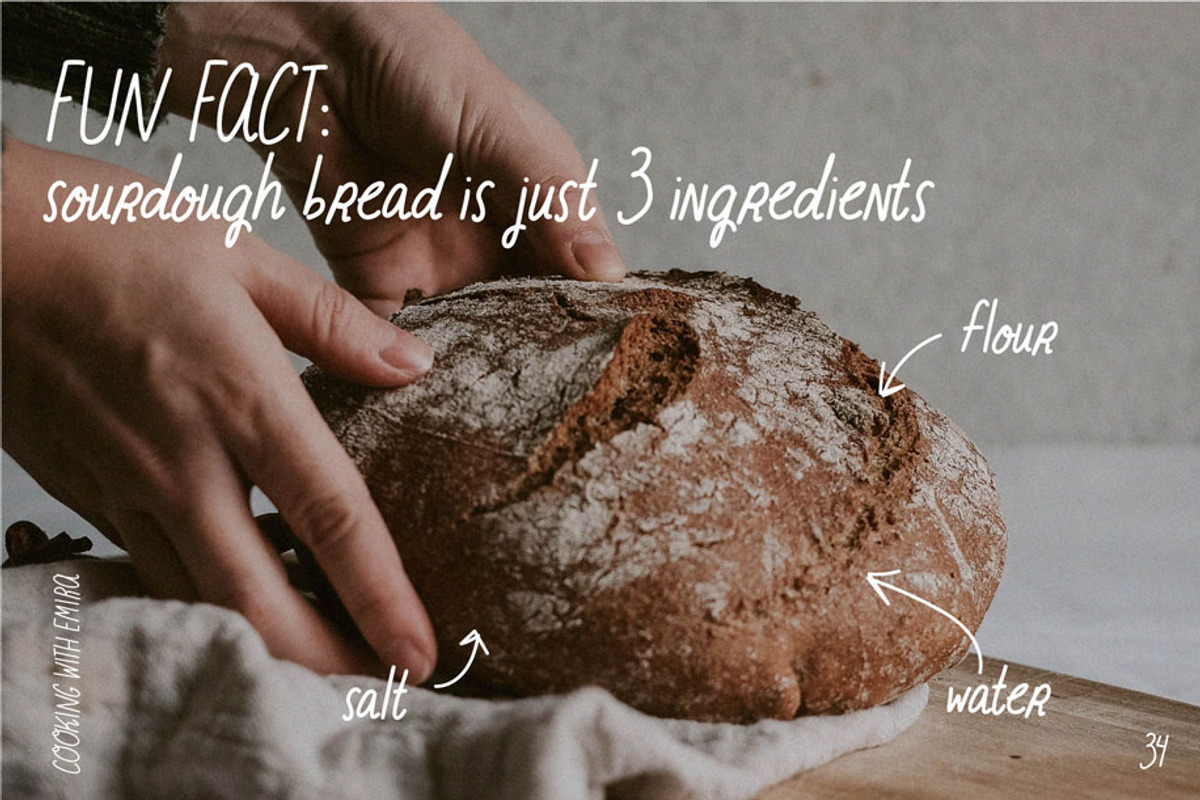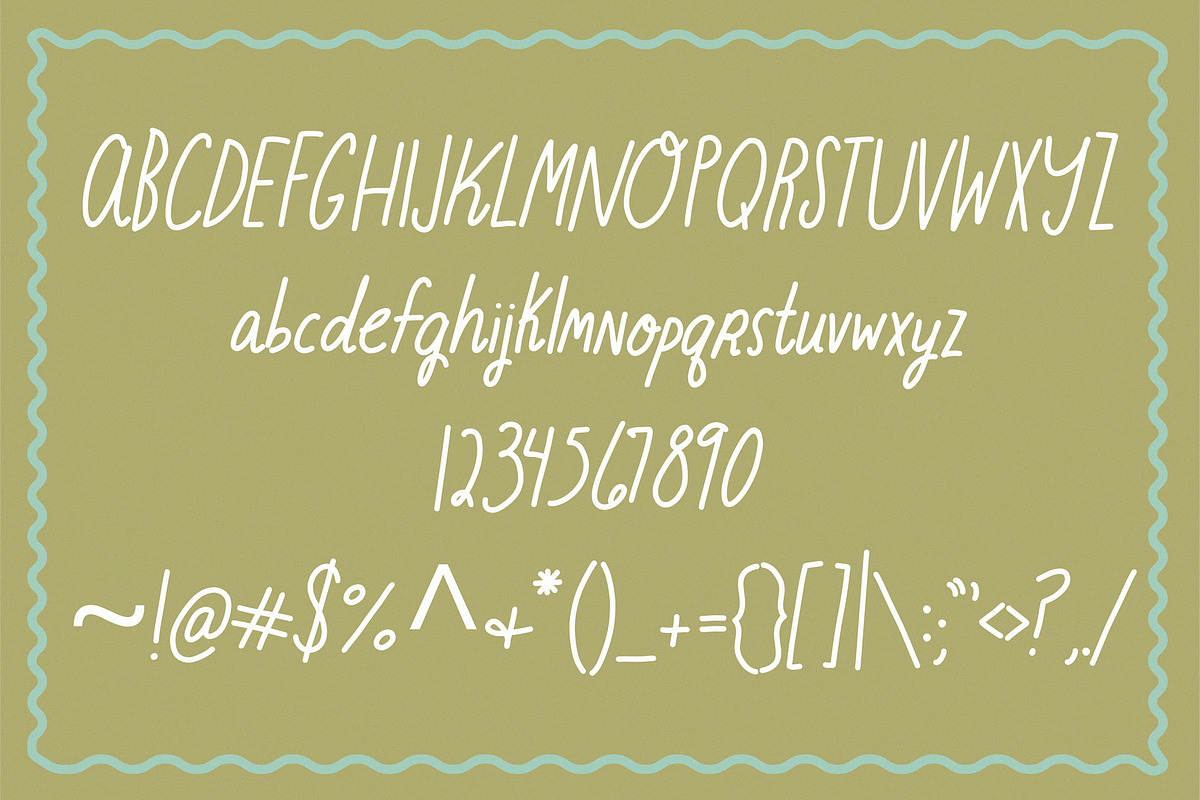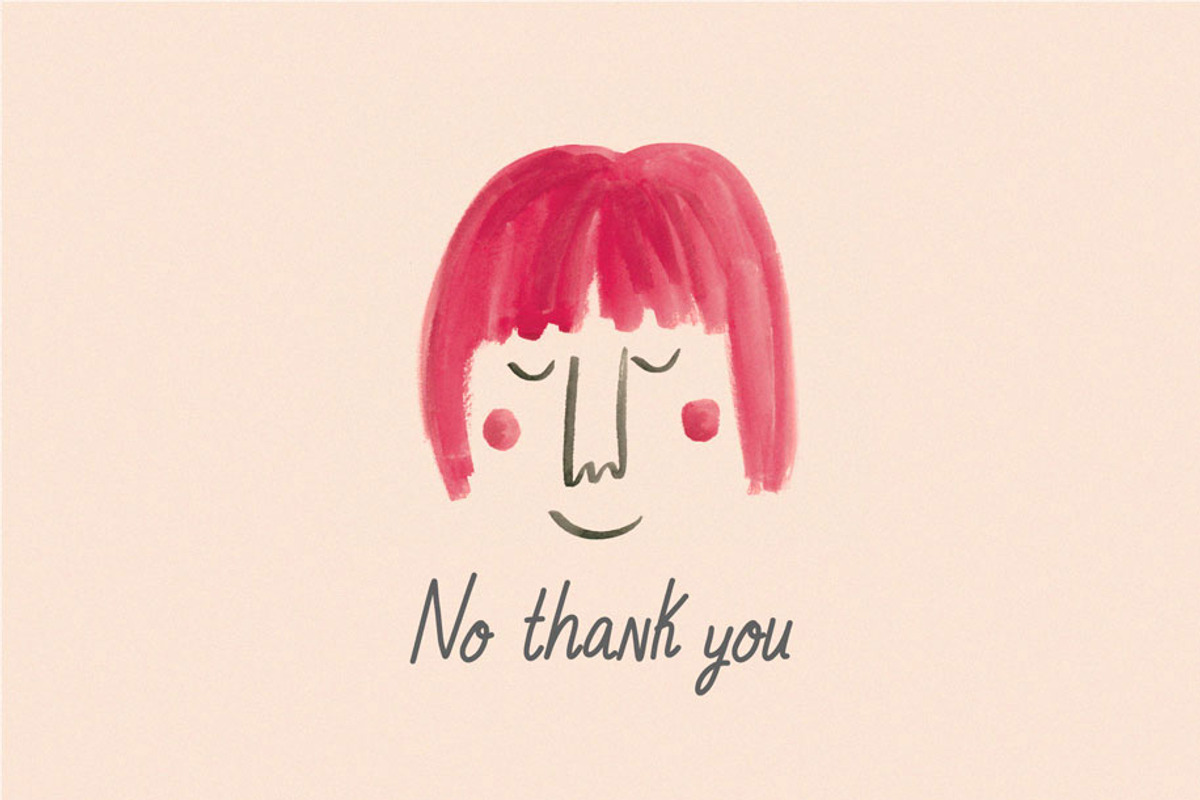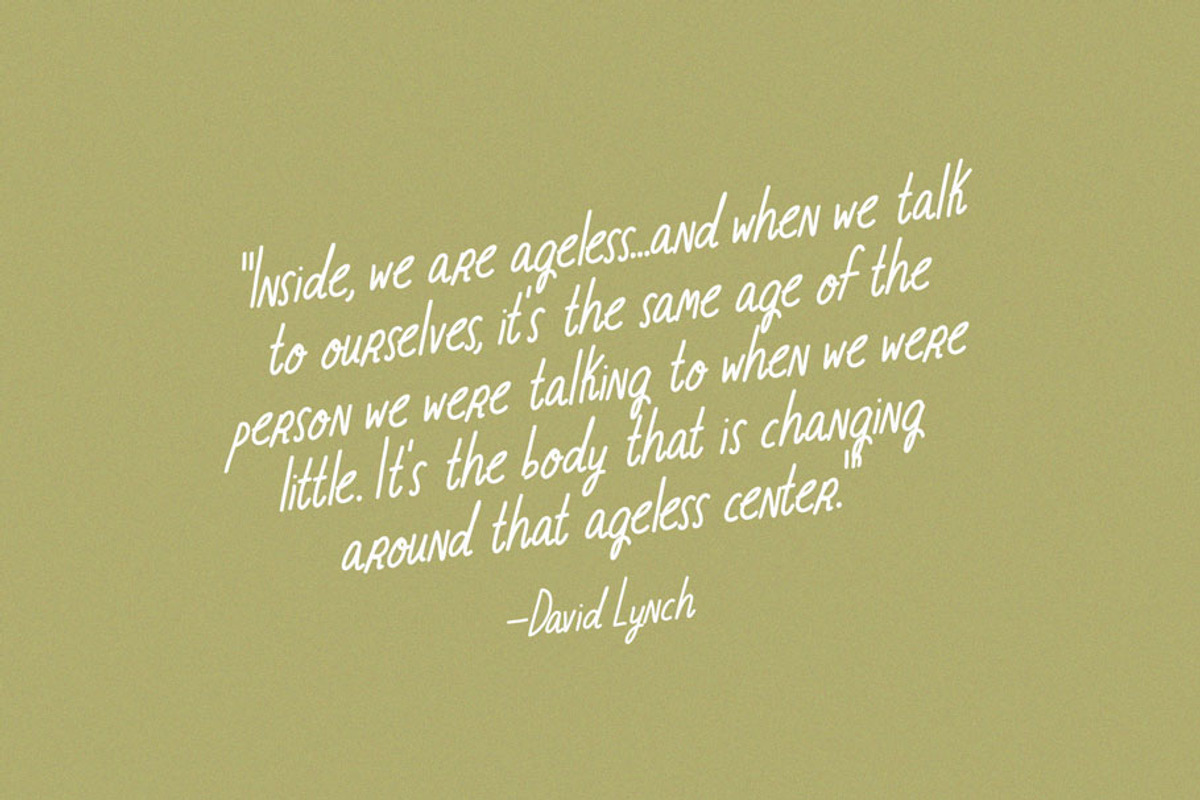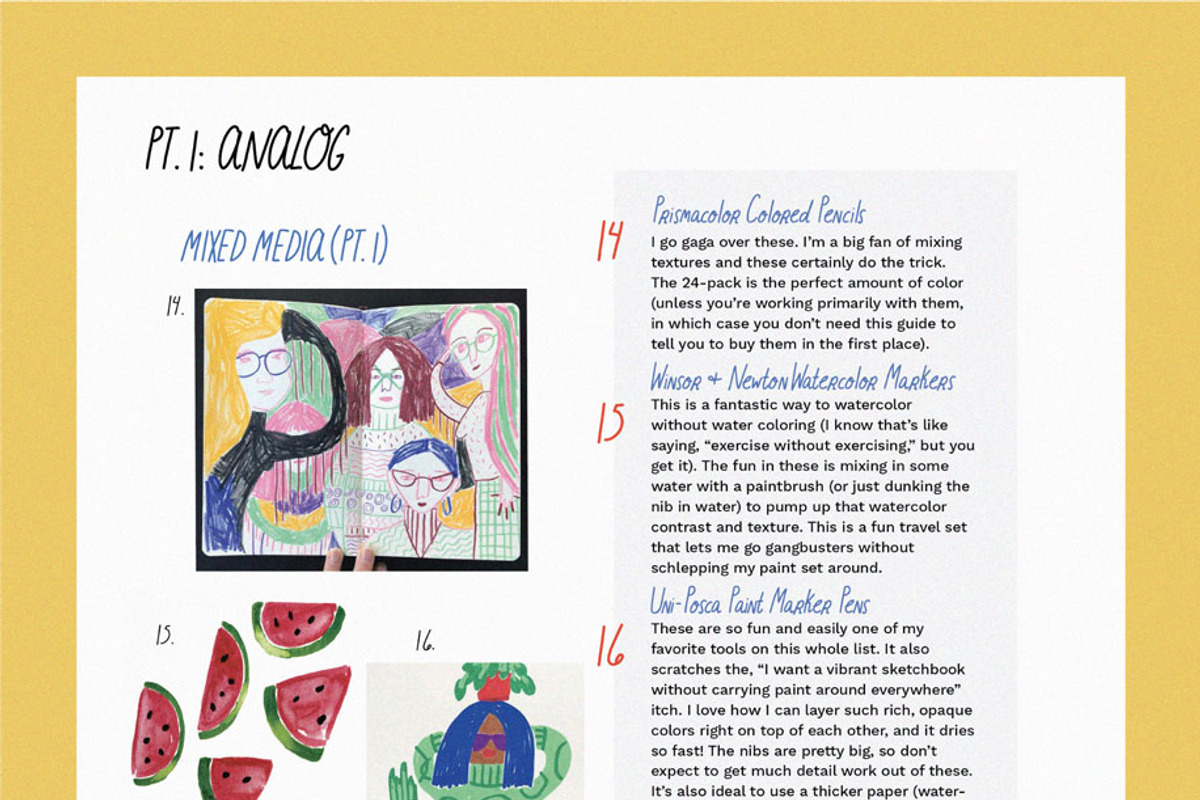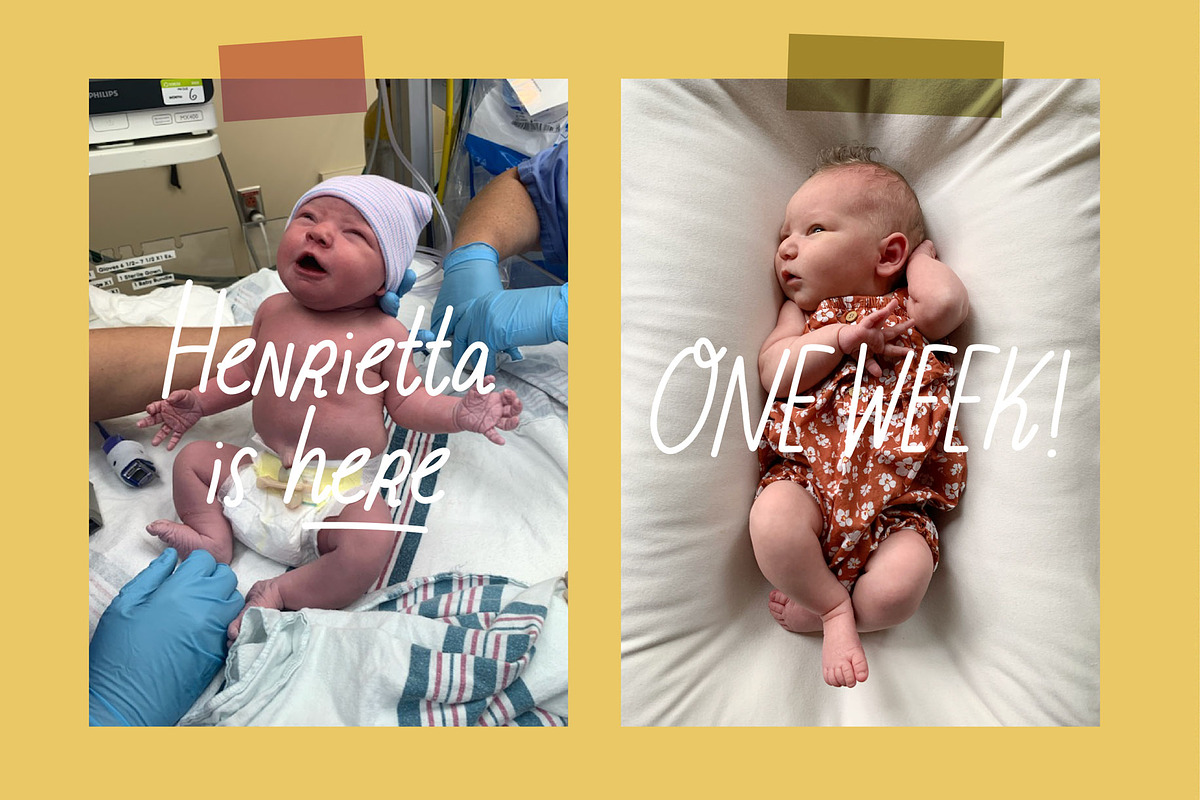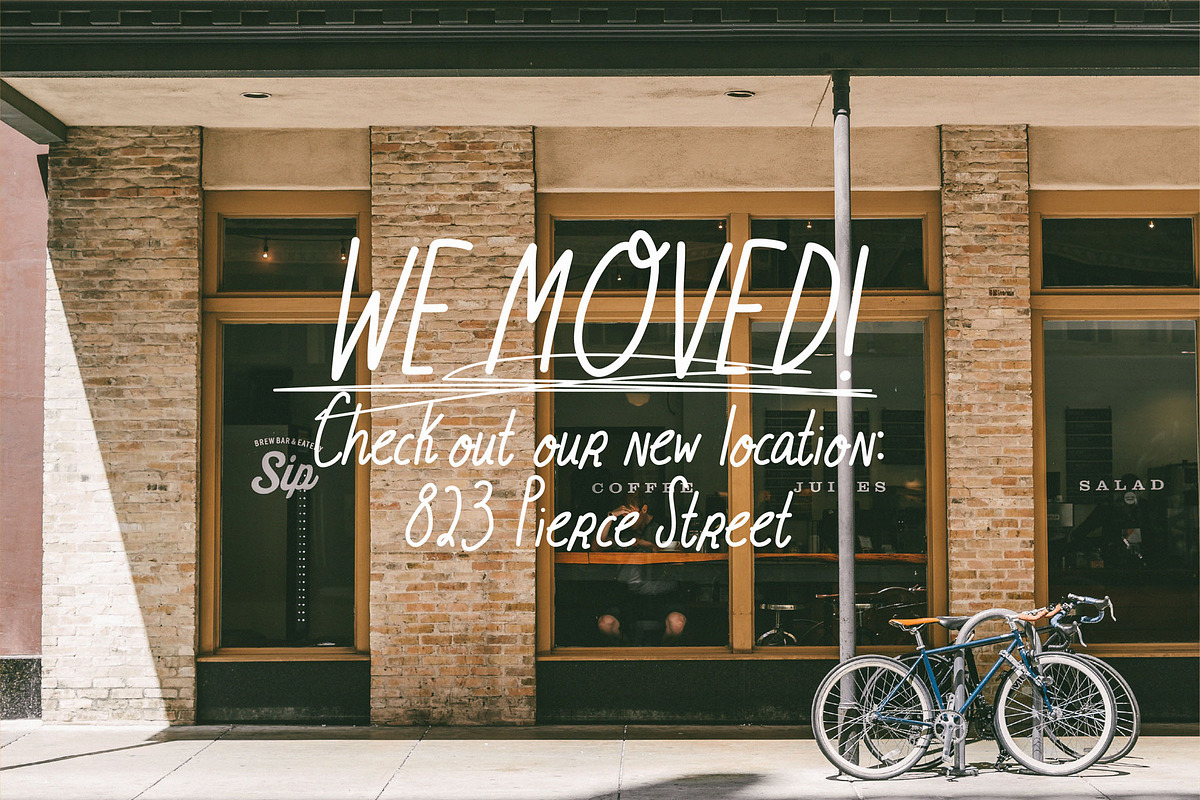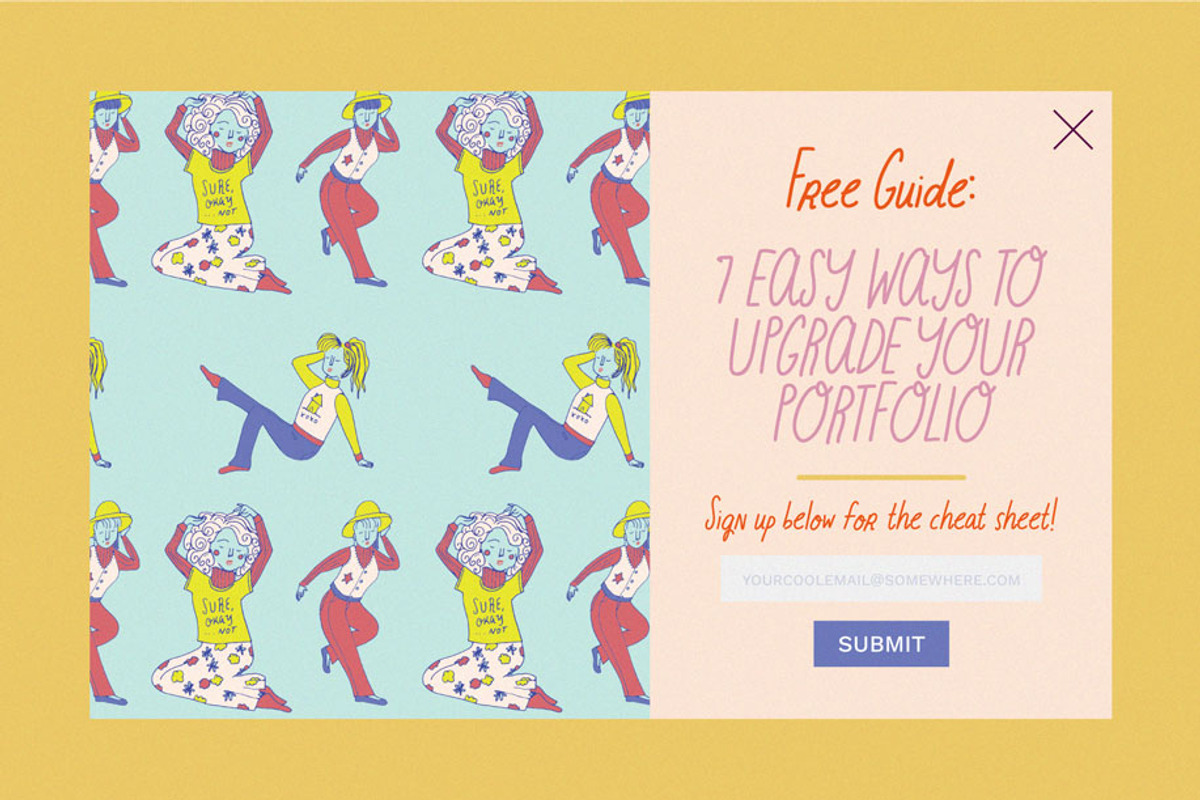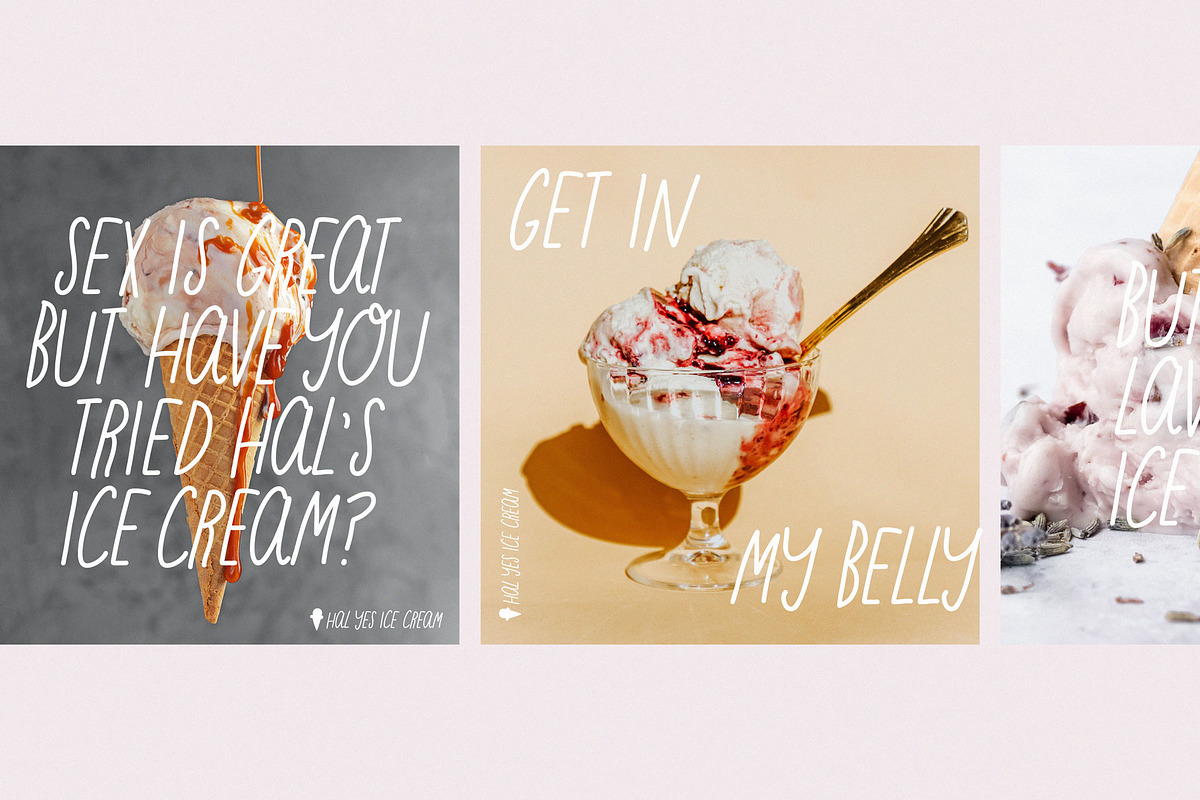
Monday Picnic • Quirky Handwriting
Monday Picnic is a quirky, playful handwritten font. It's childlike without being childish. Monday Picnic is perfect for body copy, digital scrapbooks, captions, headers, products, Instagram announcements, web banners, book covers, logos, inspiring quotes, and more!
It comes with uppercase, lowercase, punctuation, and foreign support. What's Included: MondayPicnic-Regular.otf